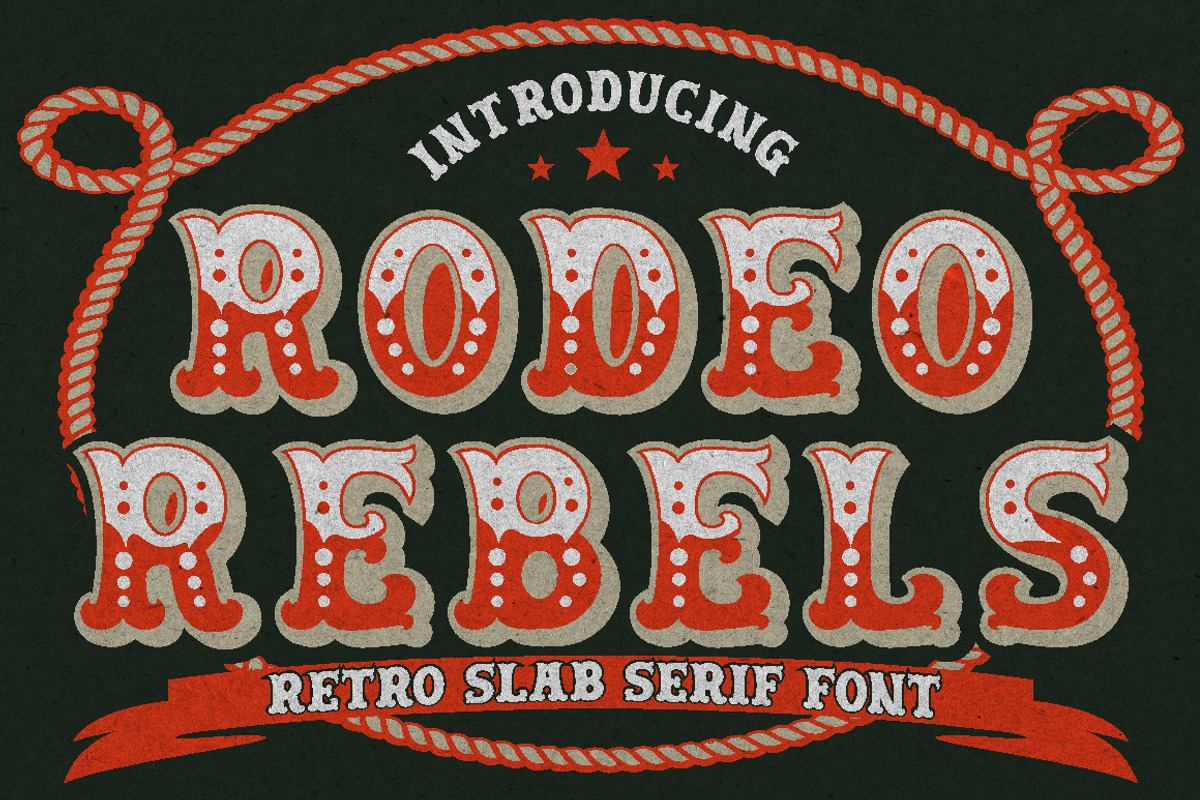
Please note that you must purchase this font for commercial use. You can download Rodeo Rebels – Display Typeface for free, strictly for personal testing purposes only. Rodeo Rebels is a bold, eye-catching display typeface designed to bring a sense of adventure and rugged charm to your designs. With its western-inspired letterforms and strong, rebellious style, Rodeo Rebels Font Free Download is perfect for logos, posters, branding, and creative designs that require a bold, energetic look.
This font combines the spirit of the Wild West with modern typographic trends, making it ideal for everything from western-themed events to streetwear branding. It includes uppercase and lowercase letters, numerals, punctuation, and multilingual support, offering flexibility for various design applications.
Whether you're designing for a rustic brand, an outdoor event, or simply want a bold statement in your typography, Rodeo Rebels adds personality and impact.